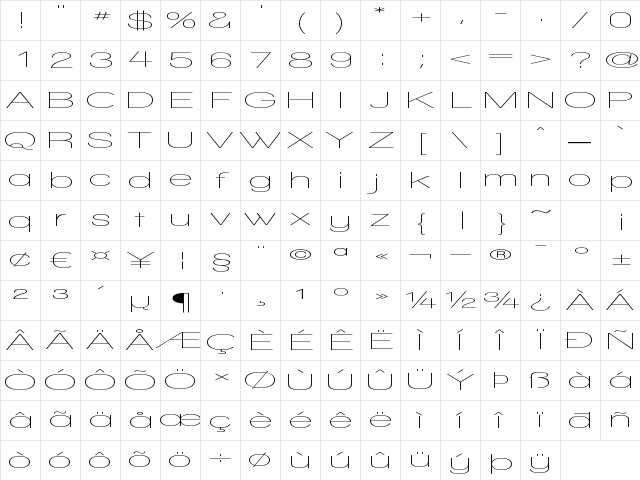
Complete Walkway UltraExpand Regular glyph index. Displaying only characters natively supported by Walkway UltraExpand Regular font.
Walkway UltraExpand is a composed and adaptable typeface that performs quietly and consistently across a wide range of design contexts.